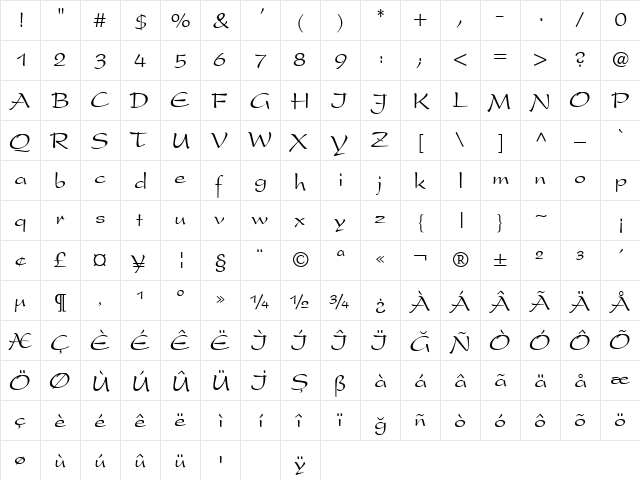
TrSah President Plain
Design Context for TrSah President Typeface
TrSah President is a composed and adaptable typeface that performs quietly and consistently across a wide range of design contexts.